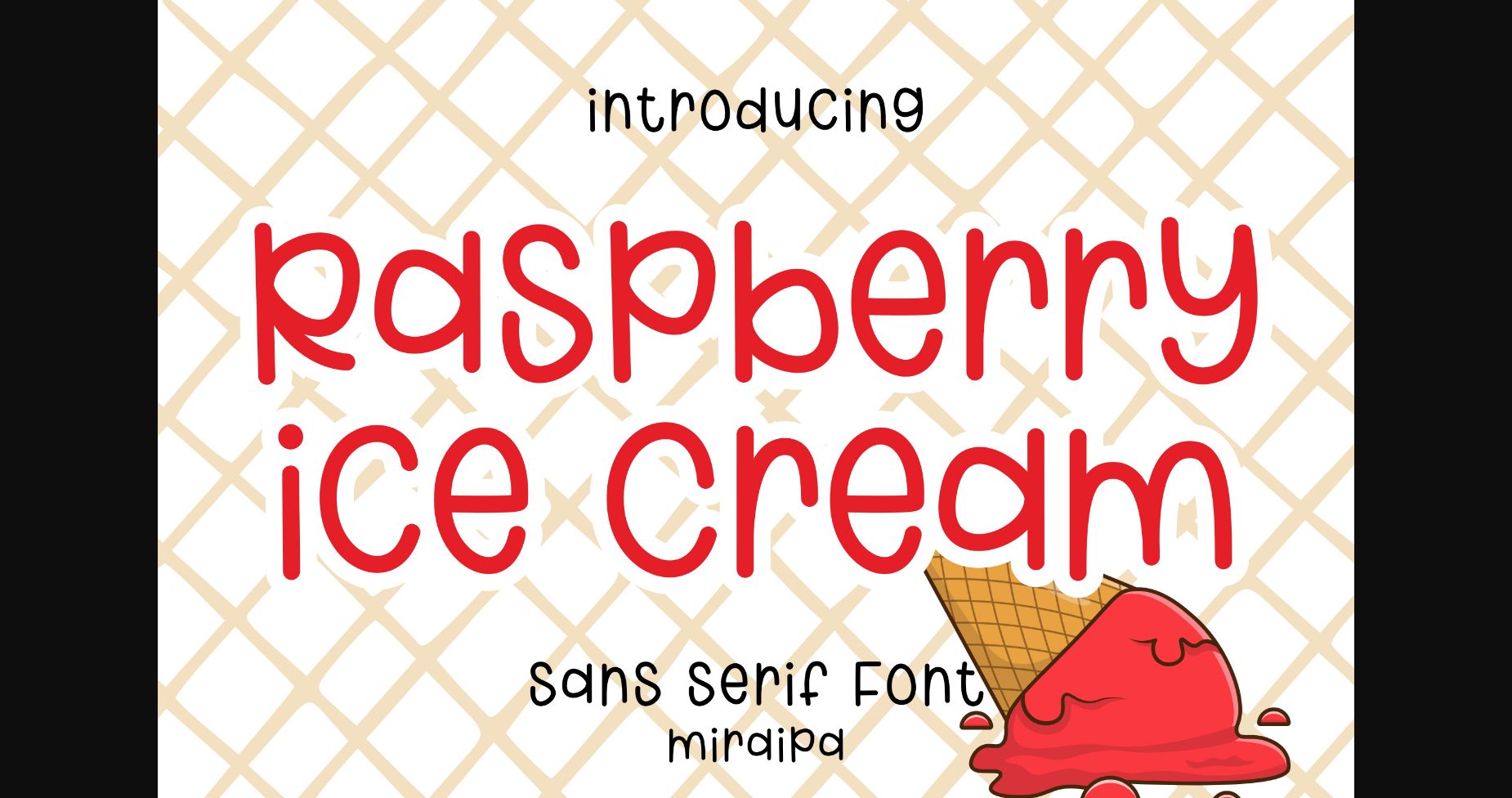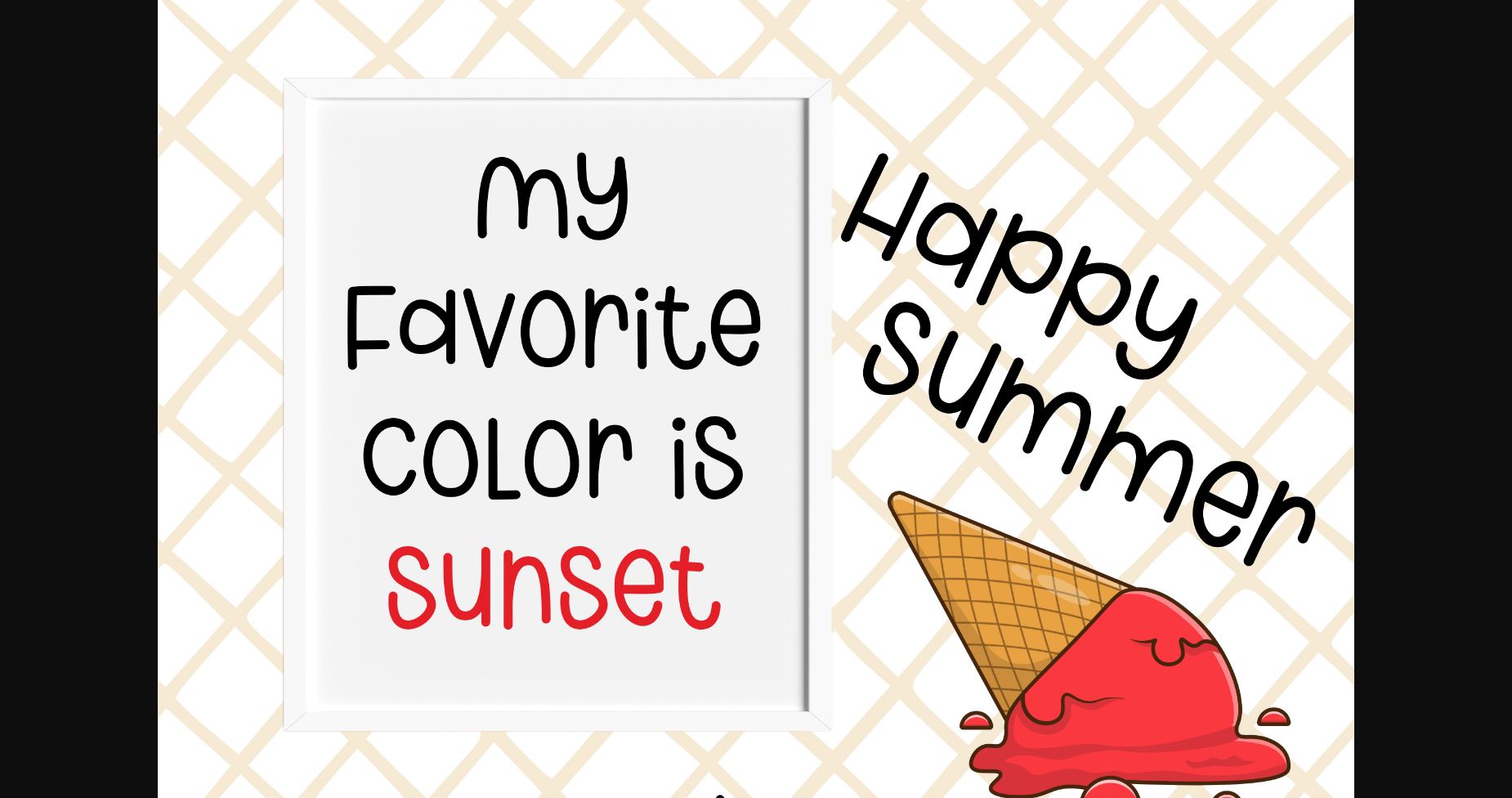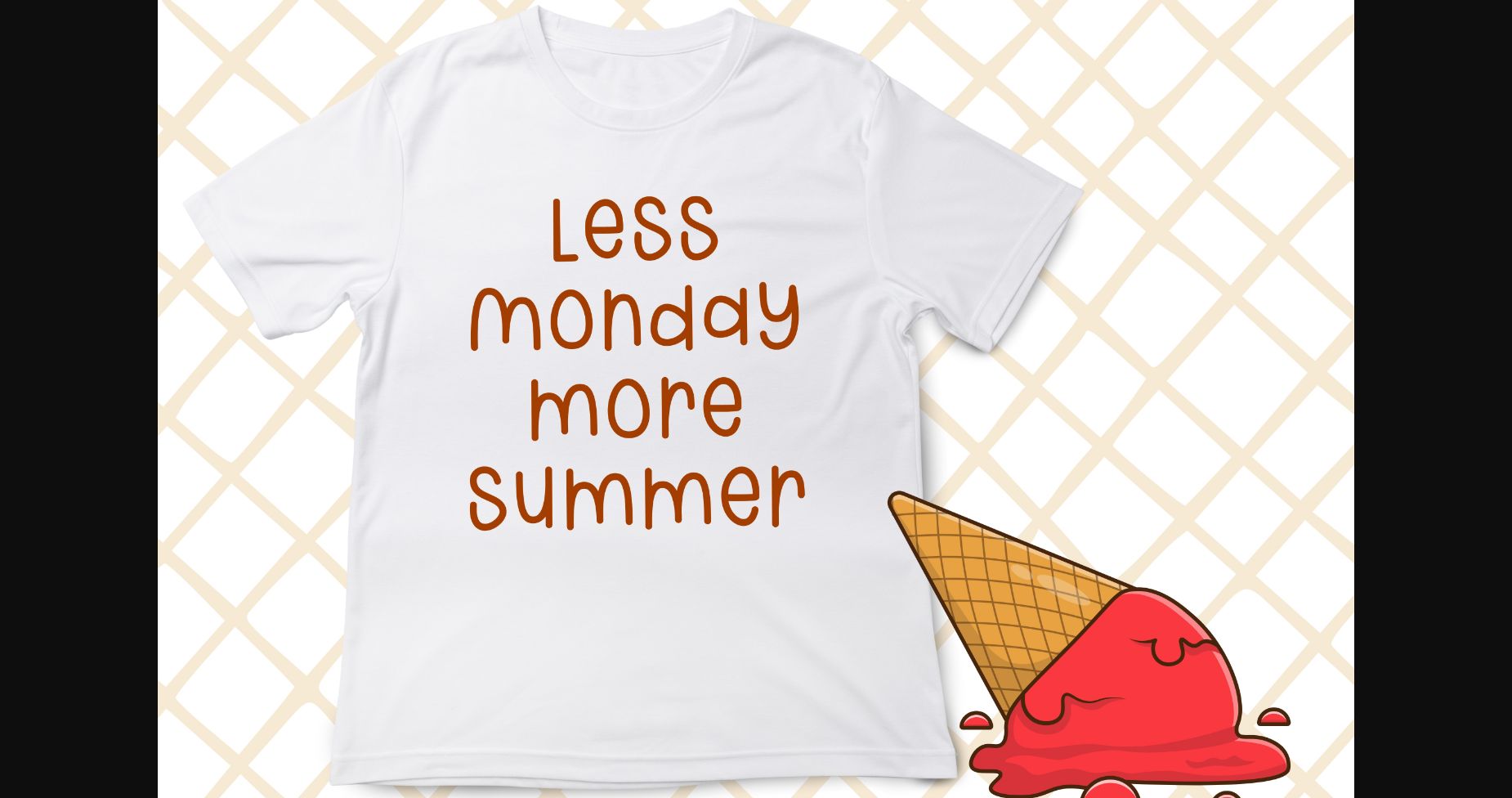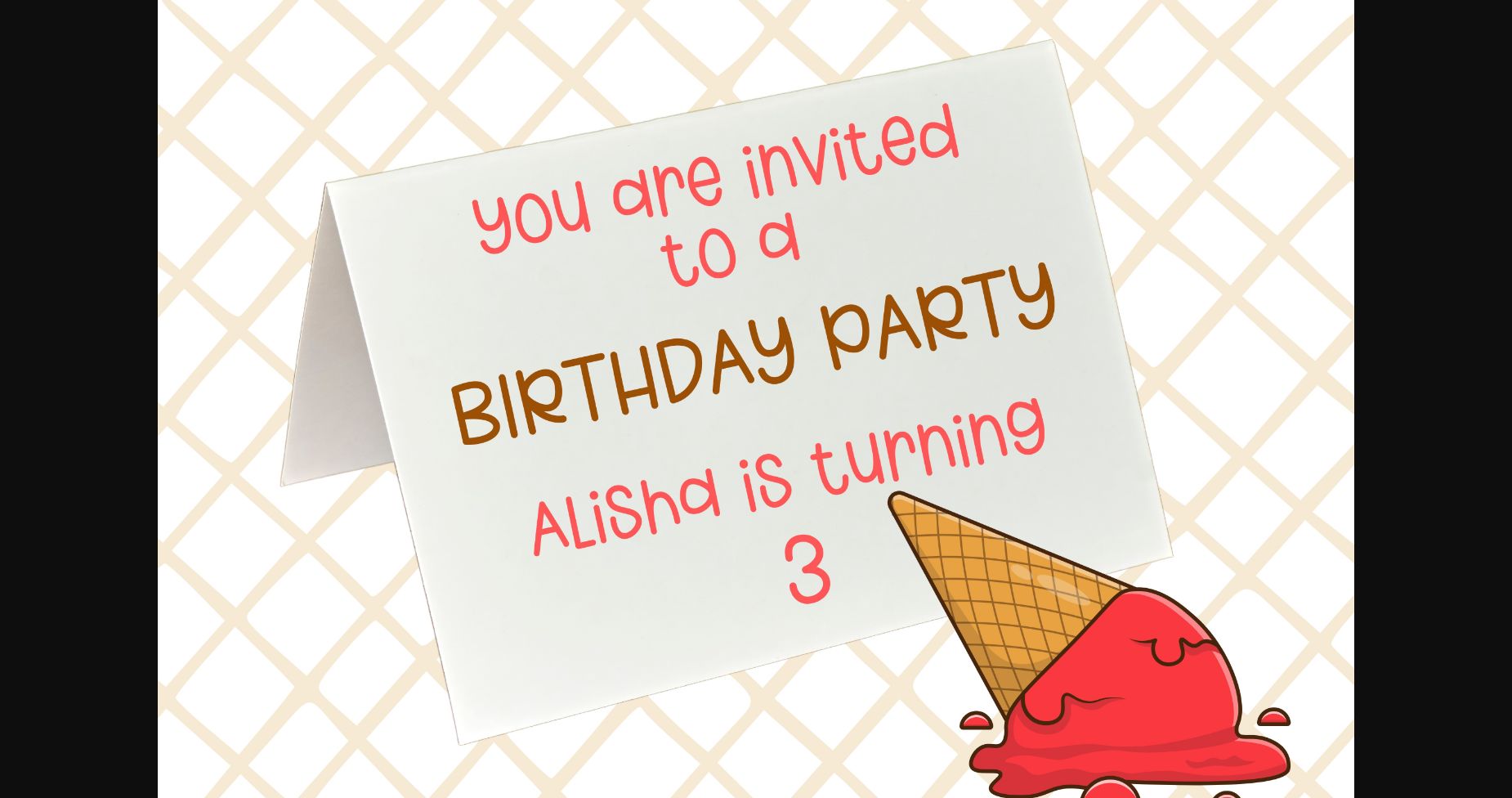
About Raspberry Ice Cream Font
Raspberry Ice Cream is a charming handwritten sans-serif font with a playful and whimsical feel. Its cute and bubbly letters are perfect for adding a touch of personality to any design project. Itβs ideal for headlines, social media graphics, and invitations.